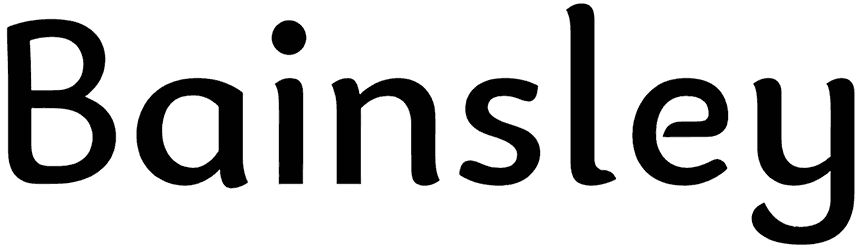
Bainsley Font
Surely, anybody has heard that magnificence drops off in simplicity. Here, we are revealing a simple font with a trendy effect, as if it attempts to prove its smart and modern identification to all of us.
The different styles and weights of the Bainsley font with rounded characters come closer to getting you this potential to involve it in your coming arrangement with freedom of action and heighten your apps, branding, website, or much more without any long delays.
The Bainsley Font
————————-This is a sans serif font which adopts some of the stylistic elements of a serif font. It has been on the go a long time but then 2020 didn’t go according to plan and there were a lot of other things to take care of and so font design was abandoned for a while. But now I’m back and I have taken the time to finish Bainsley.
Bainsley has many open type features and supports many european languages including Greek, Cyrillic and Armenian.
The font has many Kerning Pairs and supports fractions, superscript and subscript. The small caps and pettite caps features work with all the supported languages.